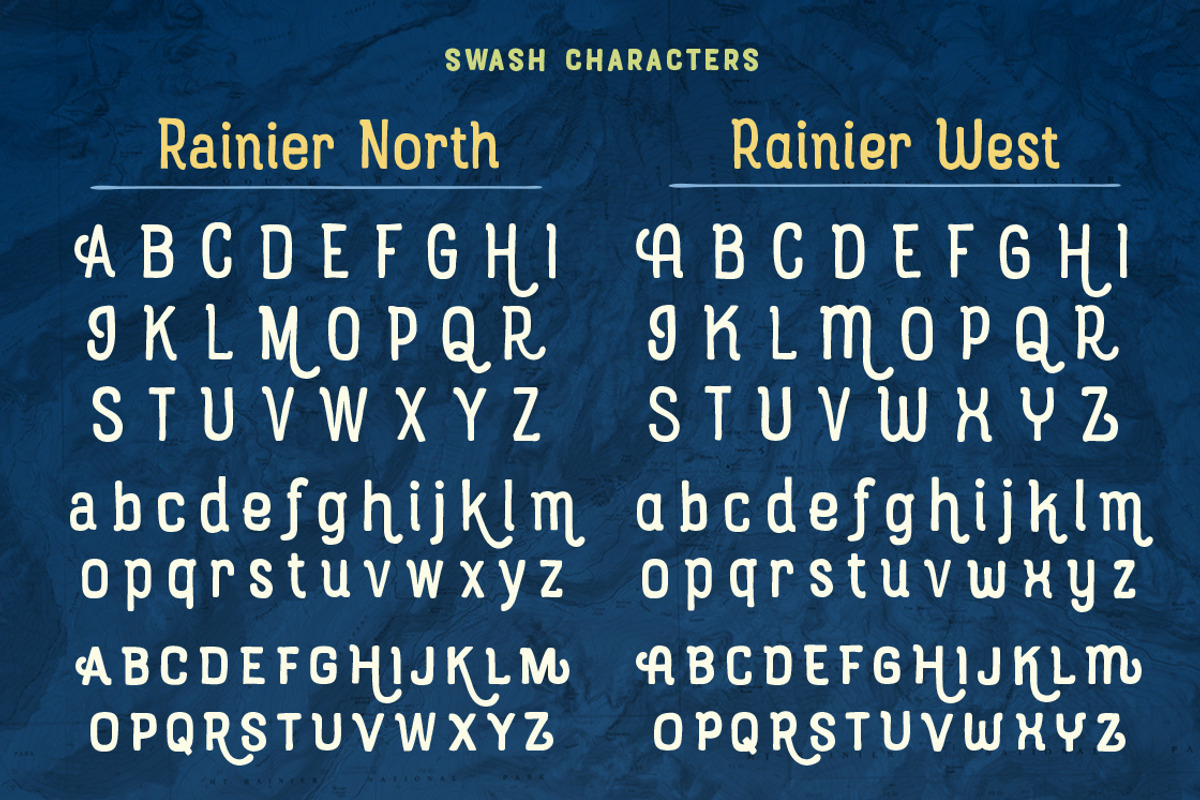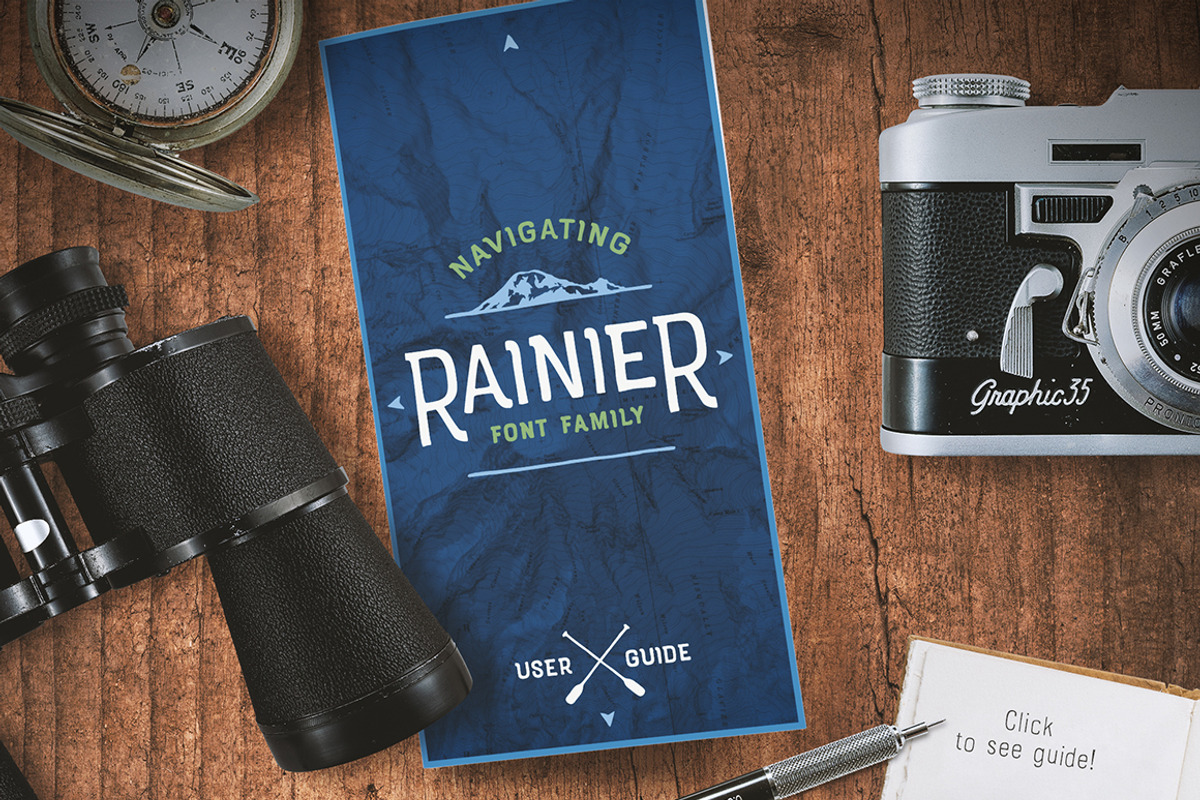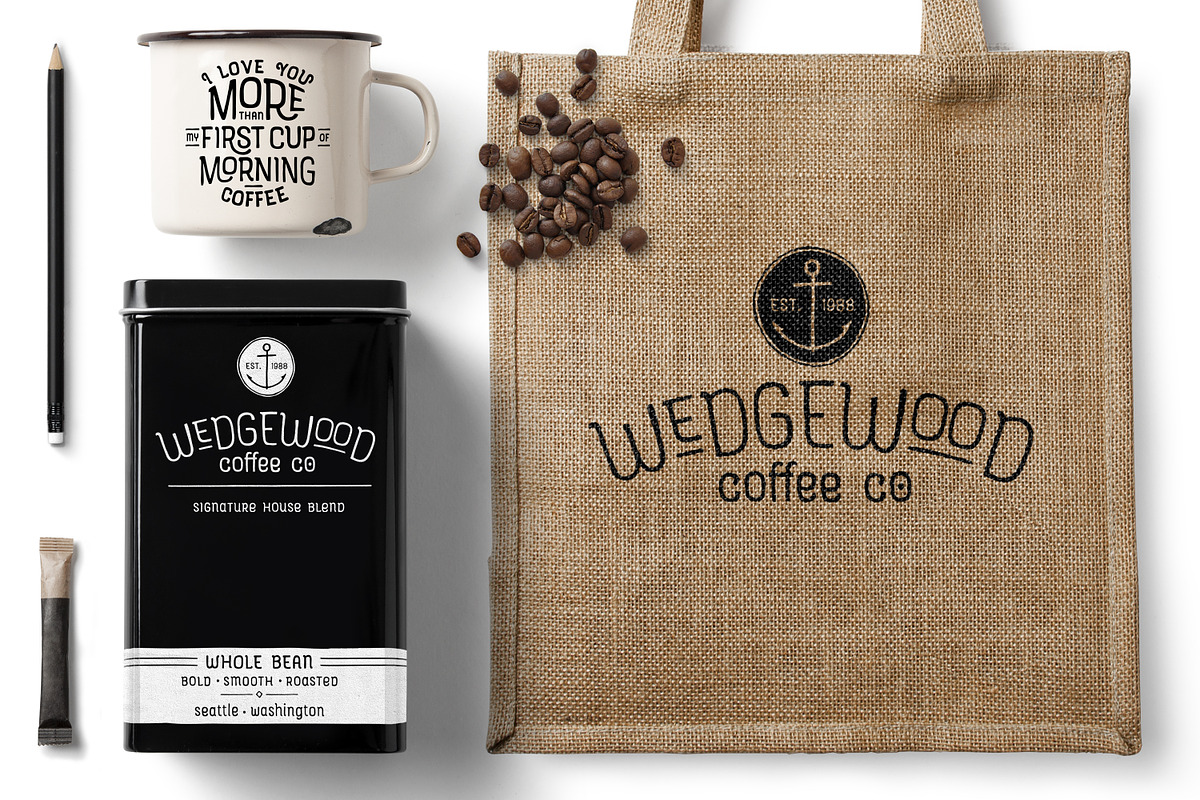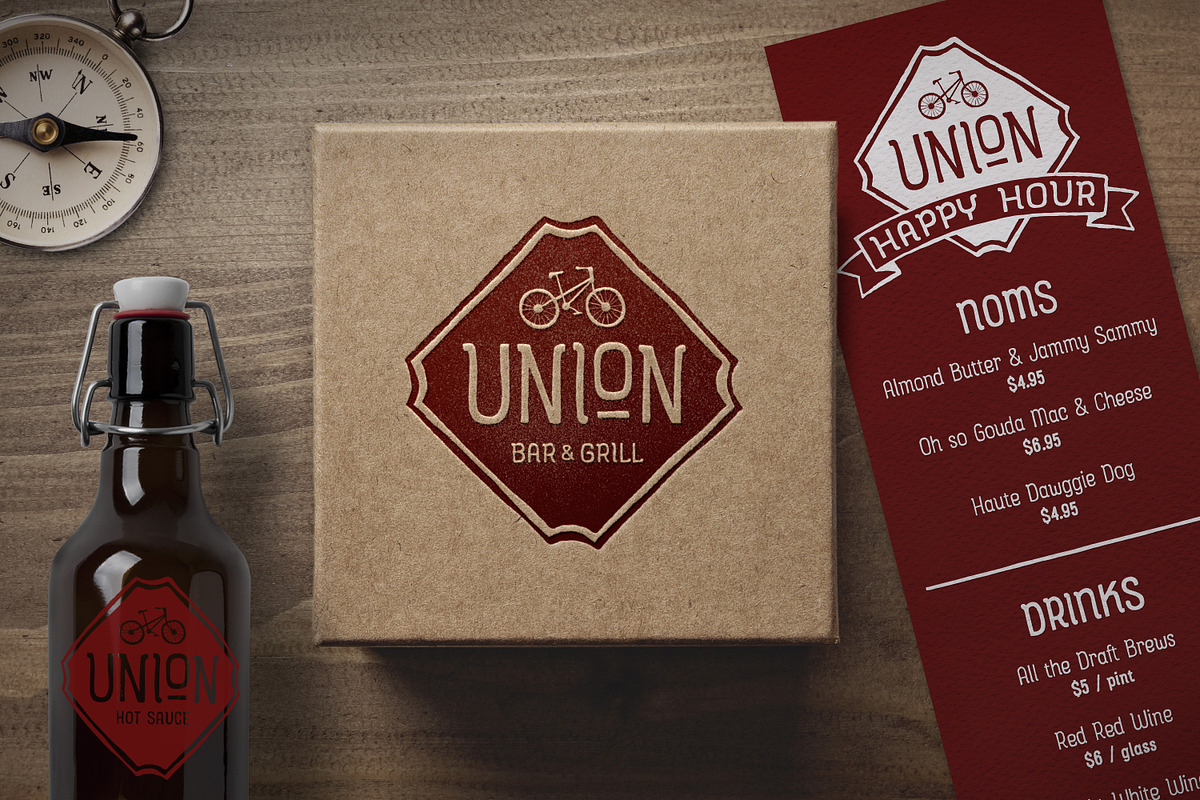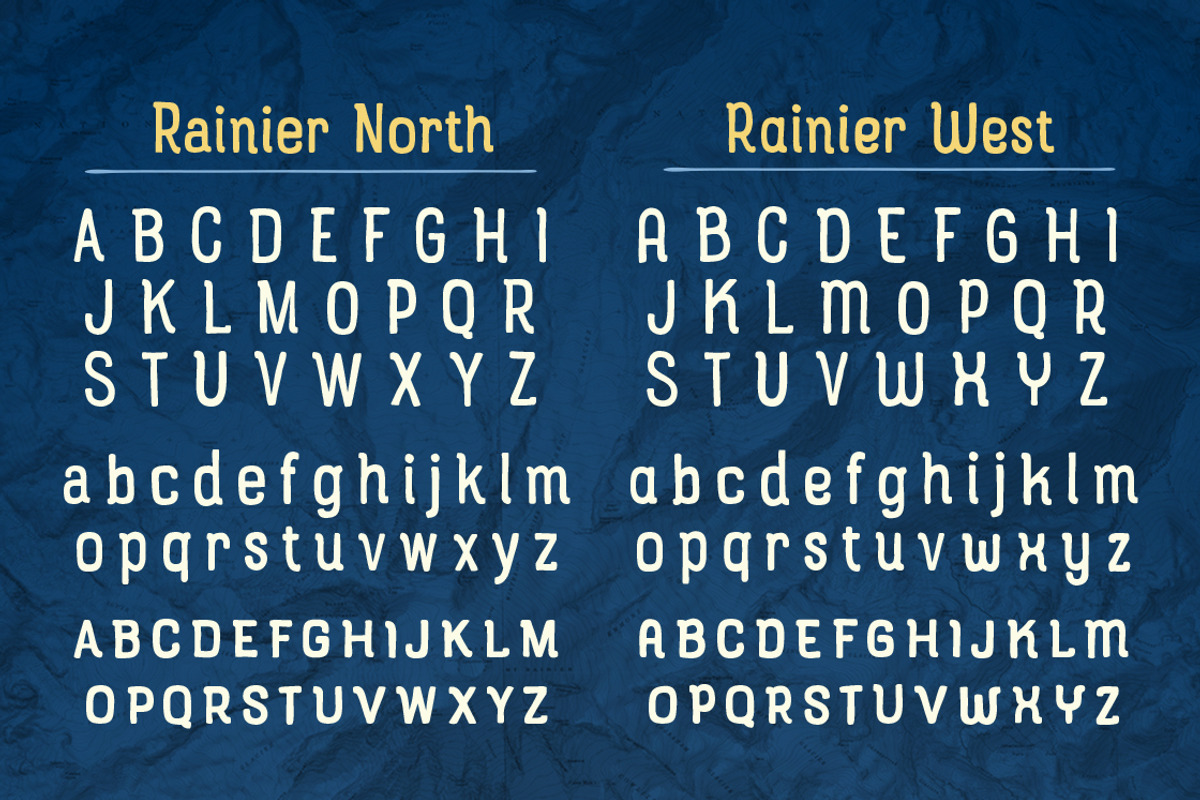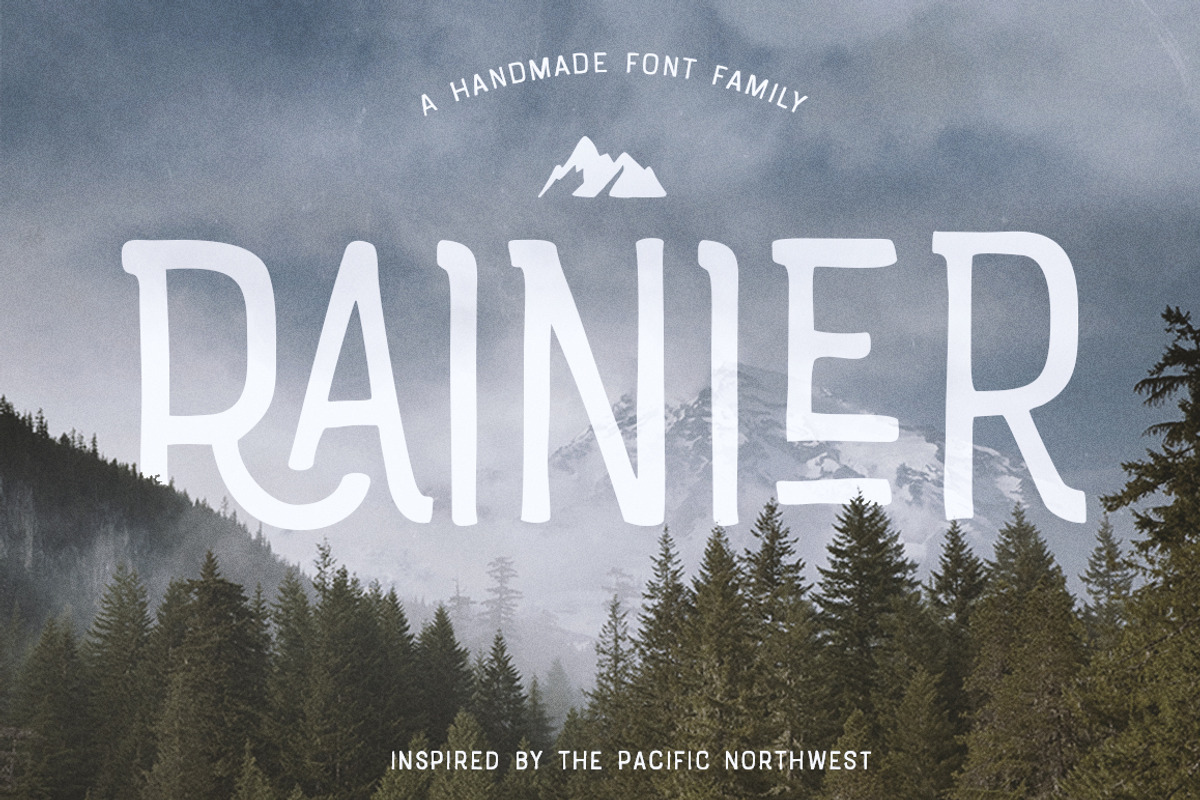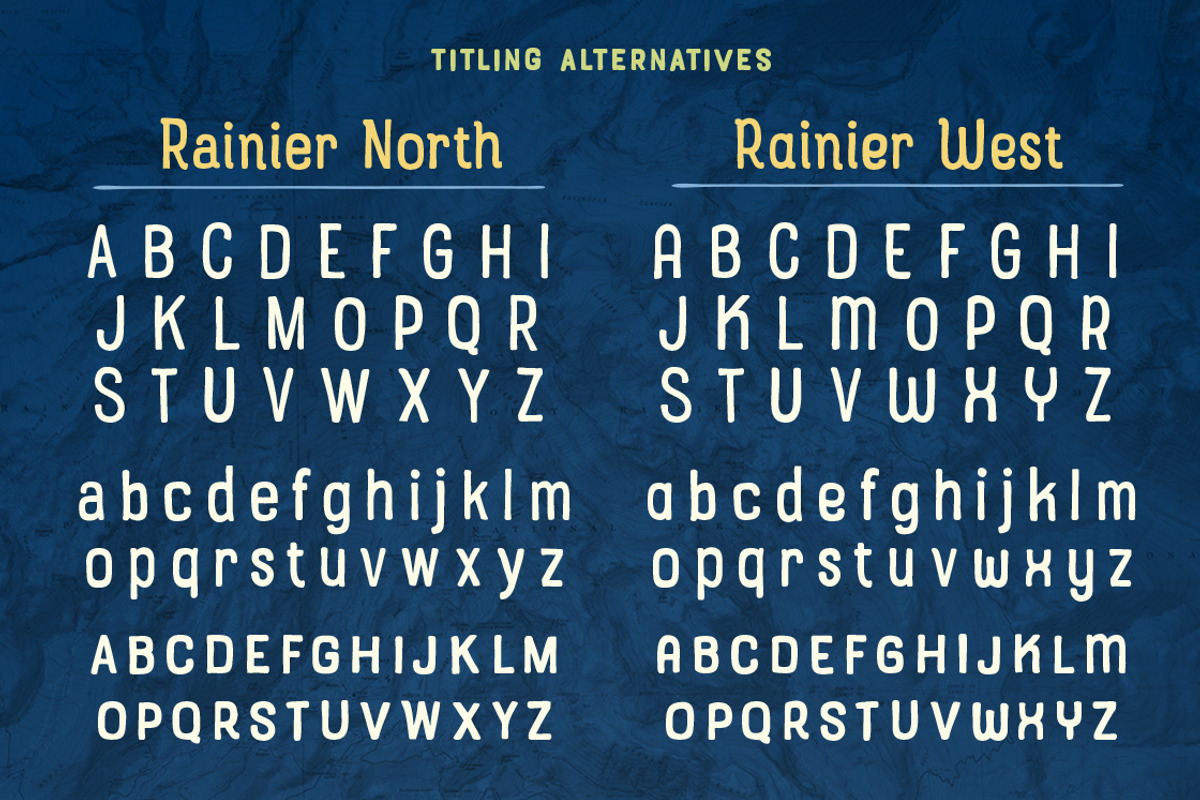
Rainier Font + webfonts
Rainier Font + webfonts by Kimmy Design is a font selected for branding, posters, packaging, typography.
- Meant for captions or smaller text, these letterforms are easy on the eye and a great compliment to the regular alphabet Stylistic Alternati
- Rainier Ornaments
Why Rainier Font + webfonts is worth a look
Rainier Font + webfonts by Kimmy Design fits naturally into Branding, posters, packaging, typography.